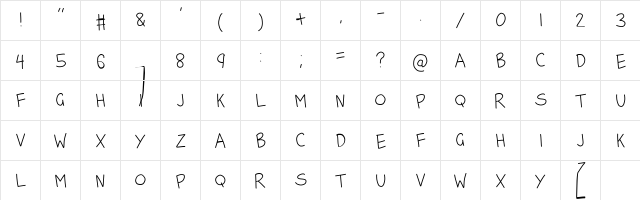
for sara Medium Font Preview
for sara Medium
Design Context for for sara Typeface
for sara takes a measured approach to typography — its balanced proportions and neutral character make it a reliable workhorse for both digital and print work.